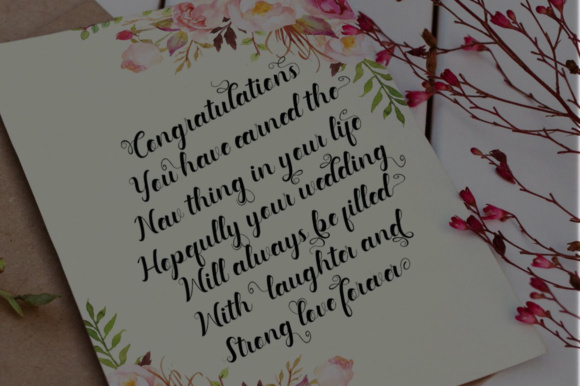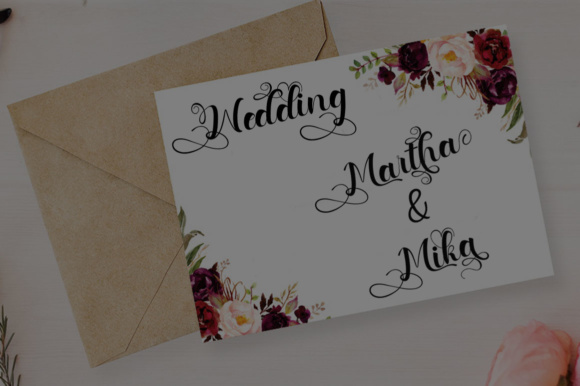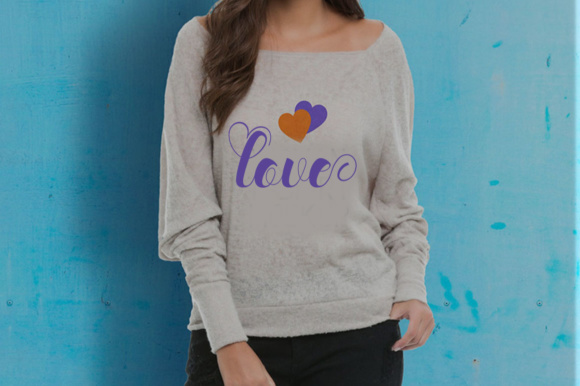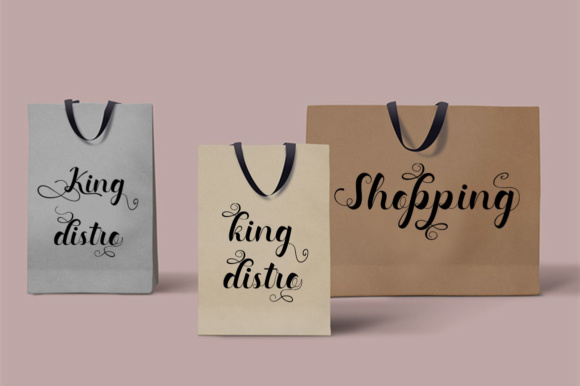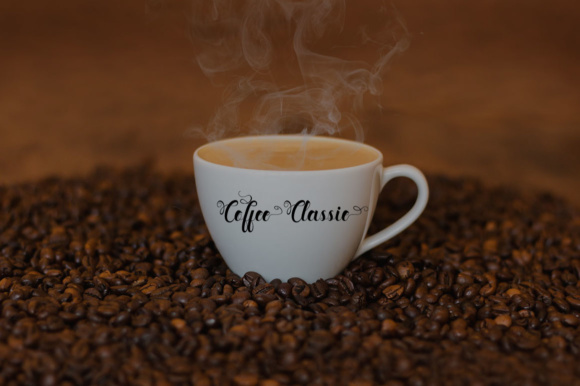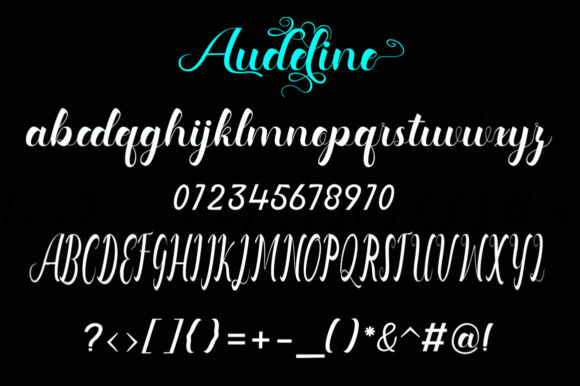
Audeline Font: Elevate Your Designs with Modern Calligraphy
In the world of typography, fonts play a crucial role in conveying the tone and aesthetic of a design. For designers and crafters looking to add a touch of elegance and sophistication to their work, the Audeline font is an excellent choice. Designed by handwriting, Audeline boasts modern and unique forms of calligraphy that can instantly elevate your designs.
The Unique Style of Audeline
Audeline’s writing style is characterized by its natural, fluid strokes that mimic the look of handwriting. This font features a very unique style of calligraphy that sets it apart from other fonts. The modern and unique forms of calligraphy in Audeline make it an ideal choice for designers looking to create stunning visual content. Whether you’re working on a logo, heading, or any other design element, Audeline’s distinctive style is sure to make your work stand out.
Versatility of Audeline
One of the key benefits of the Audeline font is its versatility. This font can be used for a wide range of purposes, including headings, logos, wedding invitations, t-shirts, letterheads, and much more. The elegance and sophistication of Audeline make it suitable for various design projects, from formal events to modern branding. Whether you’re a designer looking to create a stunning visual identity or a crafter working on a DIY project, Audeline is an excellent choice.
Why Choose Audeline?
So, why should you choose Audeline for your design projects? Here are a few reasons:
- Unique Style: Audeline’s unique style of calligraphy sets it apart from other fonts, making your designs instantly recognizable.
- Modern and Elegant: The modern and elegant look of Audeline makes it perfect for designs that require a touch of sophistication.
- Versatile: Audeline can be used for a wide range of purposes, from headings and logos to wedding invitations and t-shirts.
- Easy to Read: Despite its elegant and cursive nature, Audeline is easy to read, making it suitable for body text as well as headings.
- Pair with Other Fonts: Audeline pairs well with clean, sans-serif fonts. Try pairing it with fonts like Arial, Helvetica, or Open Sans for a stunning contrast.
- Experiment with Sizes: Don’t be afraid to experiment with different font sizes to create visual hierarchy in your designs.
- Use for Headings: Audeline is perfect for headings and titles. Use it to create stunning headings that grab attention.
In conclusion, the Audeline font is a beautiful and versatile font that can elevate your designs with its modern and unique forms of calligraphy. Its natural writing style and elegant look make it suitable for a wide range of design projects, from formal events to modern branding. Whether you’re a designer or a crafter, Audeline is an excellent choice for anyone looking to add a touch of sophistication to their work.
With its unique style, versatility, and elegance, Audeline is sure to become a favorite font among designers and crafters. So why not give it a try and see how it can elevate your designs?